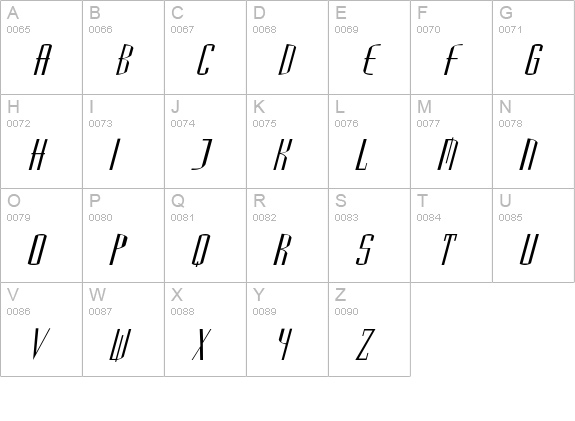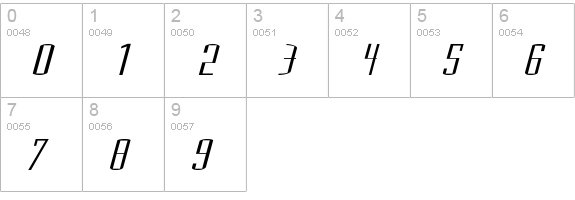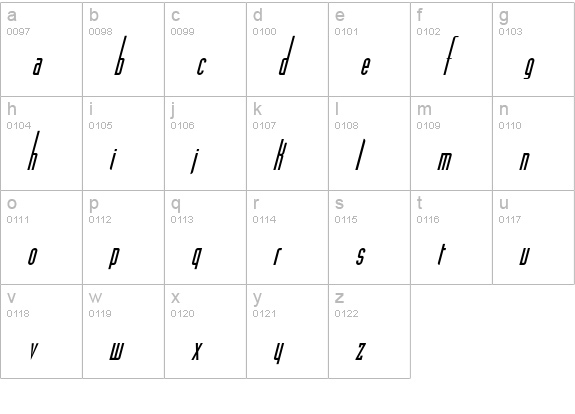
Madrid2ExpItal Font Details
Madrid2ExpItal font is a stunning typeface that exudes elegance and sophistication. Its sleek and modern design makes it the perfect choice for various creative projects, from branding and advertising to posters and headlines. This font features a unique italic style that adds a touch of dynamism and flair to any text. Its carefully crafted letterforms are perfectly balanced, creating a harmonious and eye-catching visual impact. The Madrid2ExpItal font is versatile and can be used for both display and body text, ensuring that your message is conveyed with style and clarity. One of the best aspects of Madrid2ExpItal font is that it is available for free download at FontsMarket.com. This means that you can easily access this beautiful font and incorporate it into your designs without any cost. Whether you are a professional designer or a casual user, this font offers you the opportunity to enhance your work with a touch of sophistication and style, without breaking the bank. So why wait? Download Madrid2ExpItal font today from FontsMarket.com and start adding a touch of elegance to your design projects. Whether you are creating a logo, designing a website, or working on a print advertisement, this font will elevate your work to new heights. Don't miss out on this fantastic and freely available font – get it now and let your creativity shine!